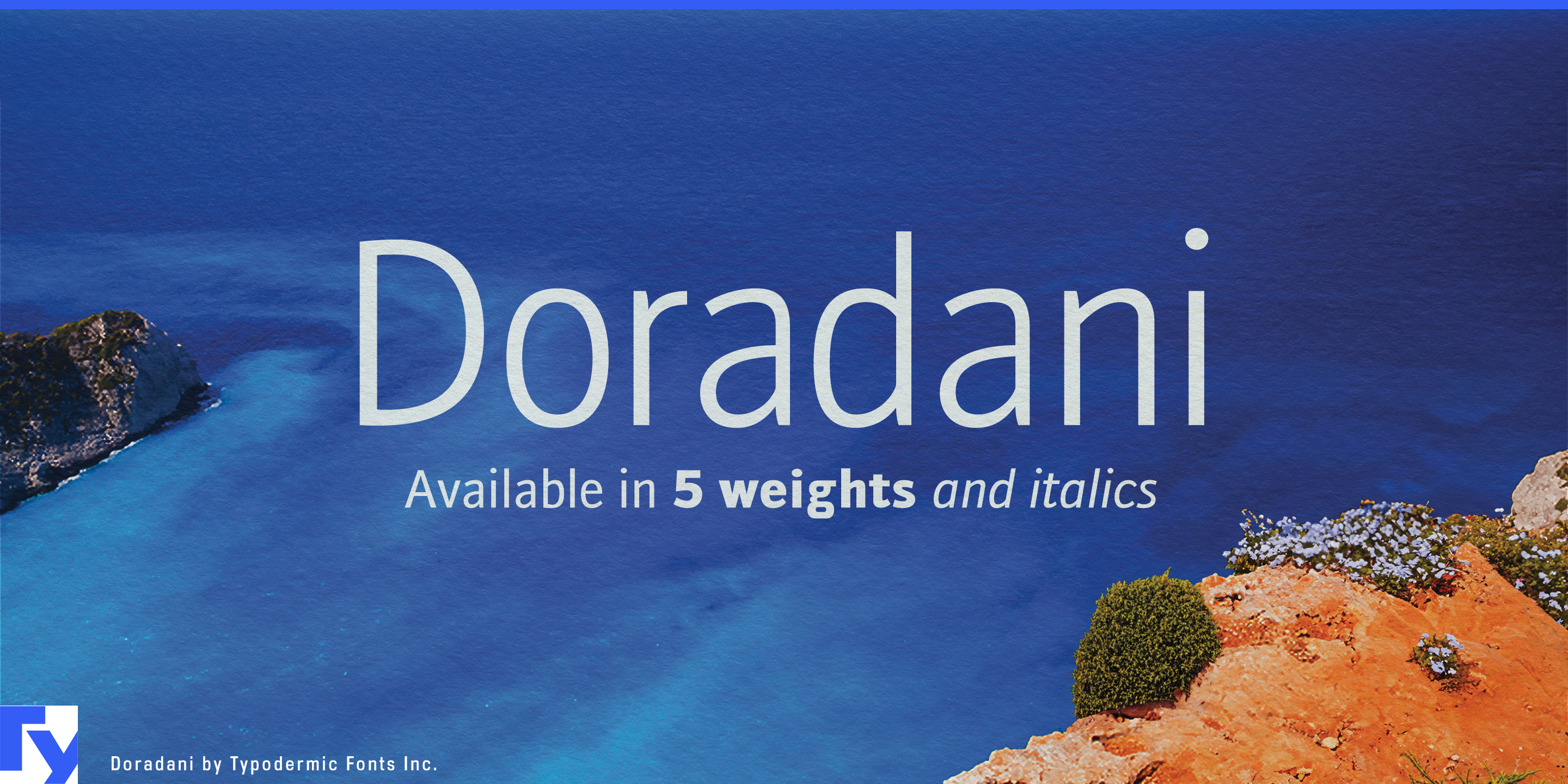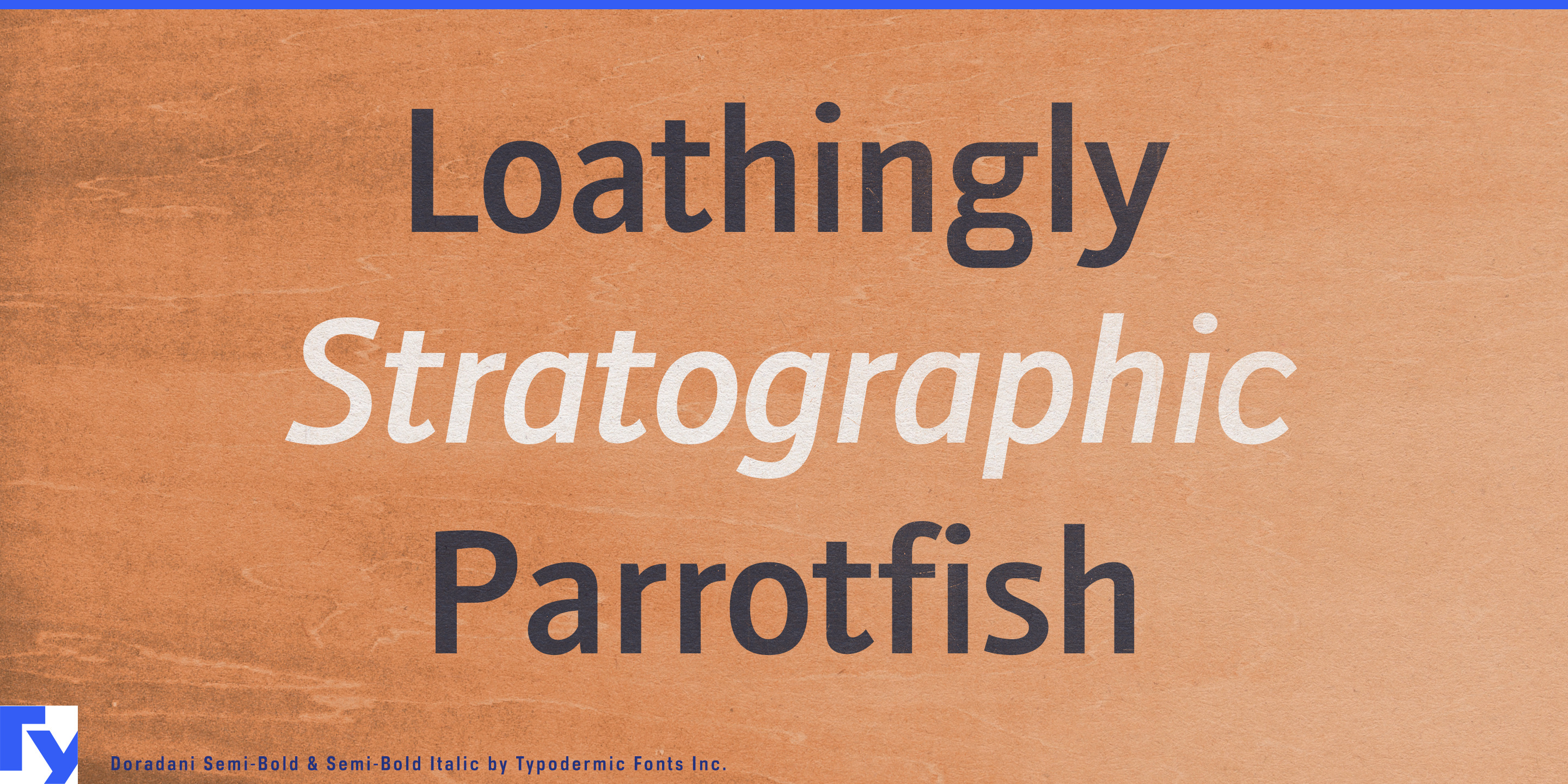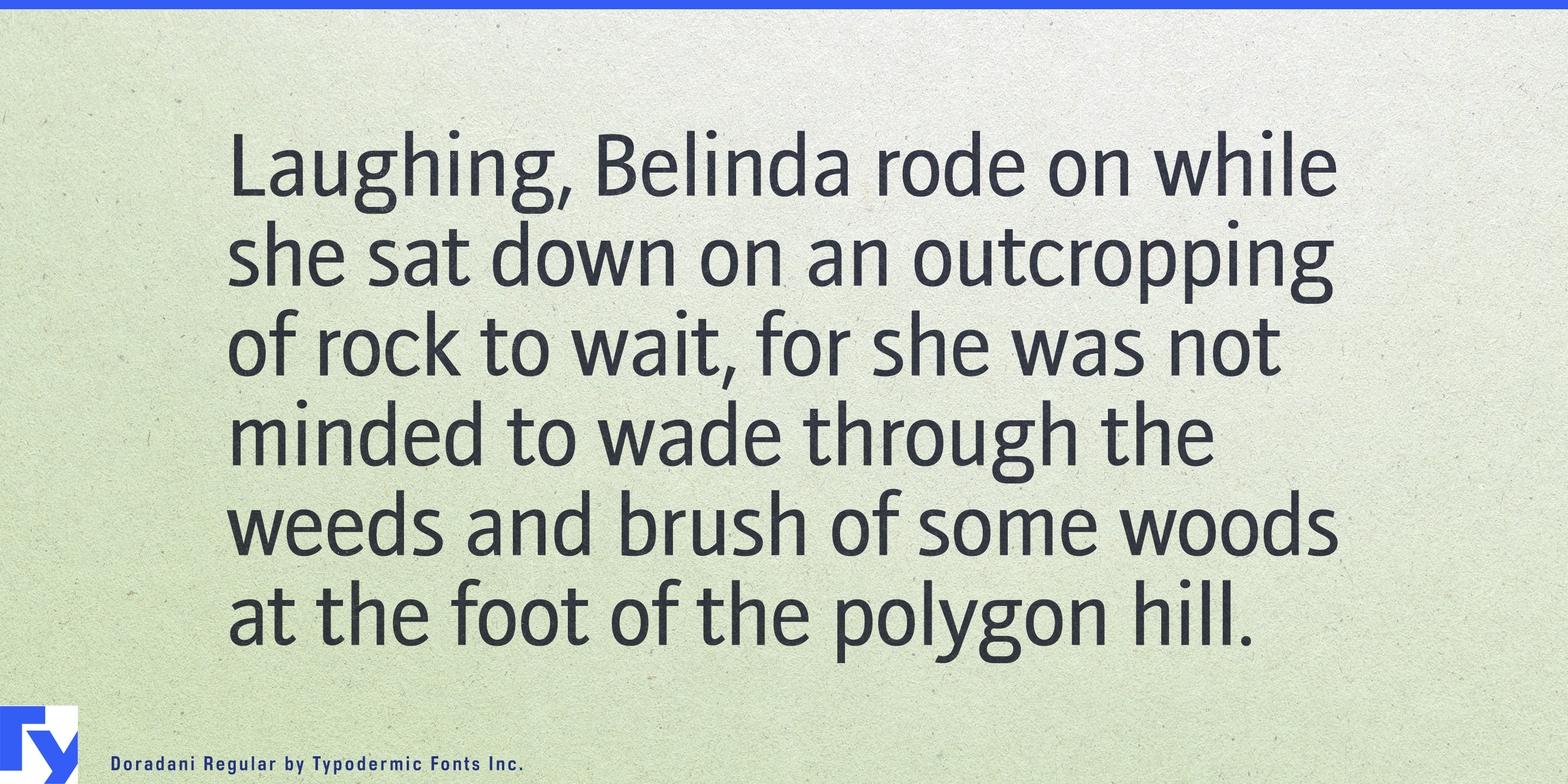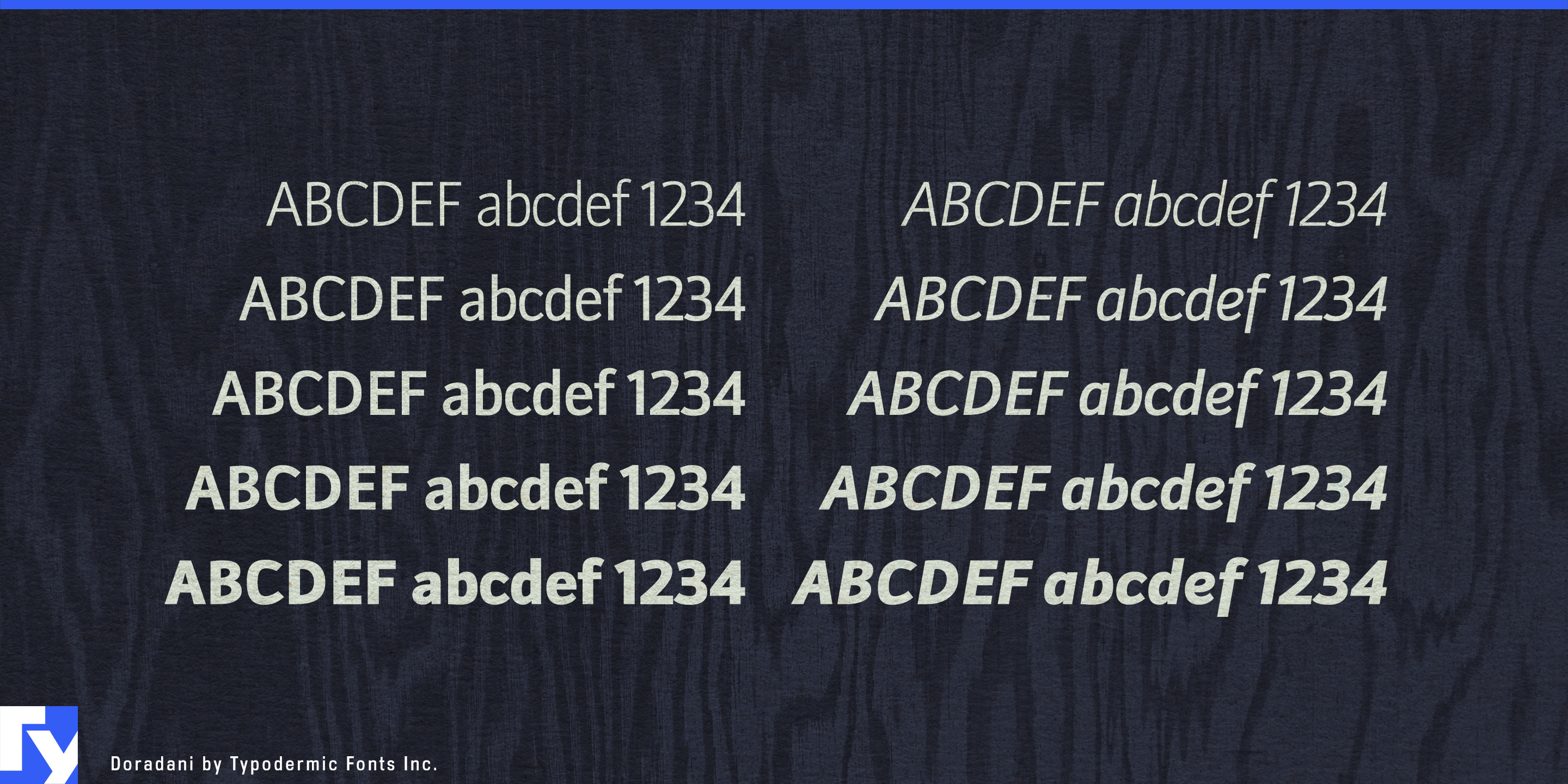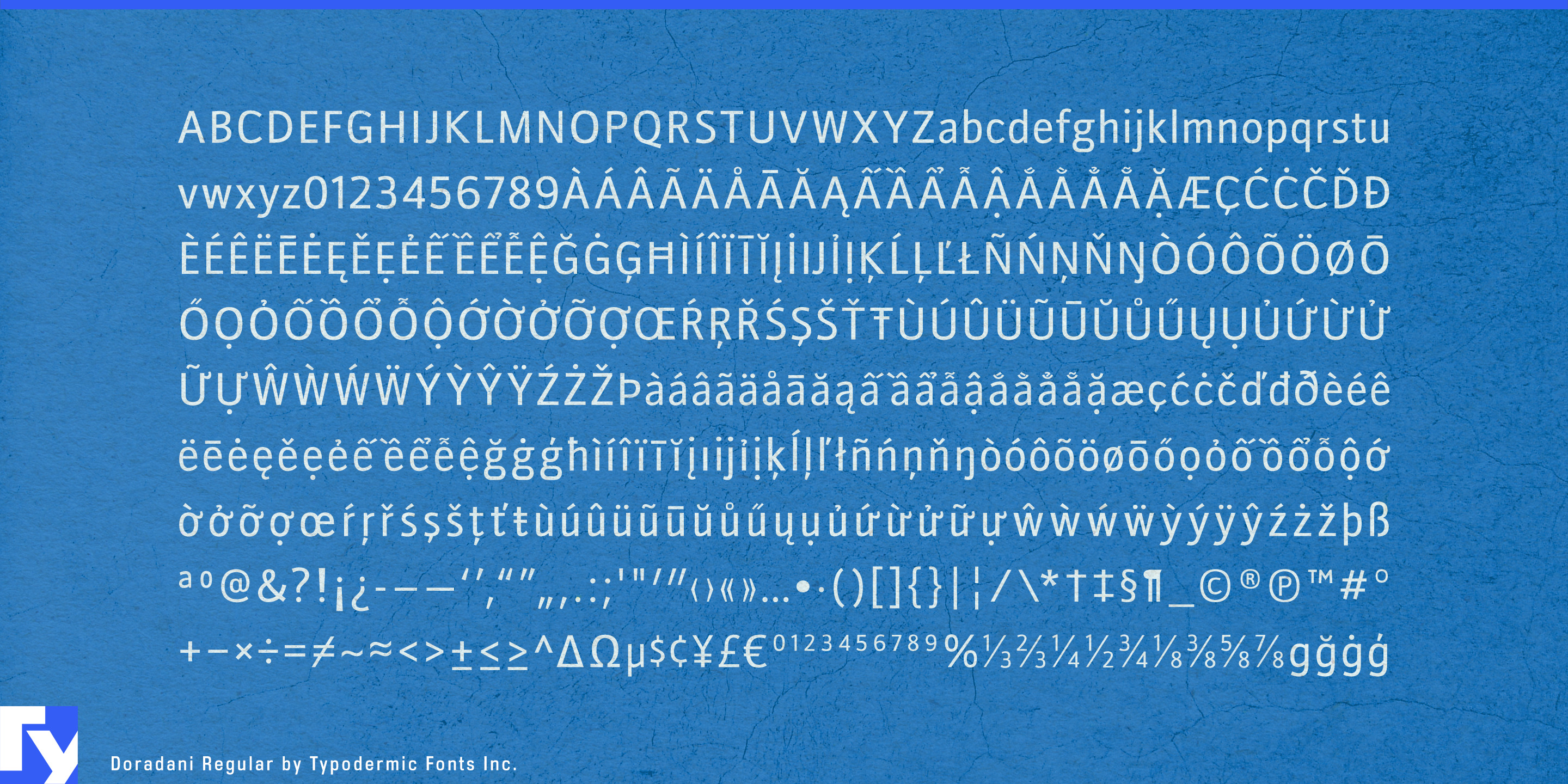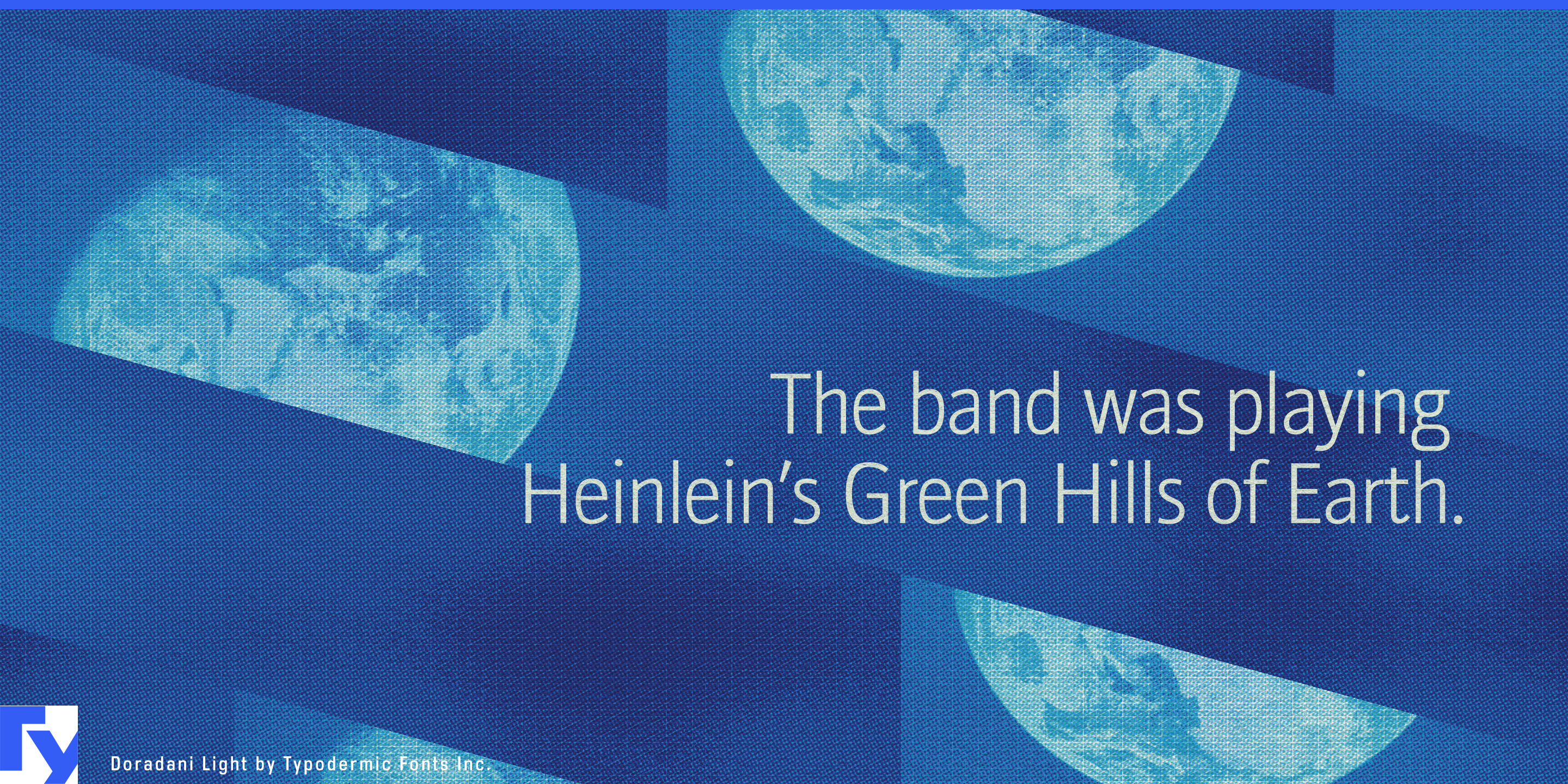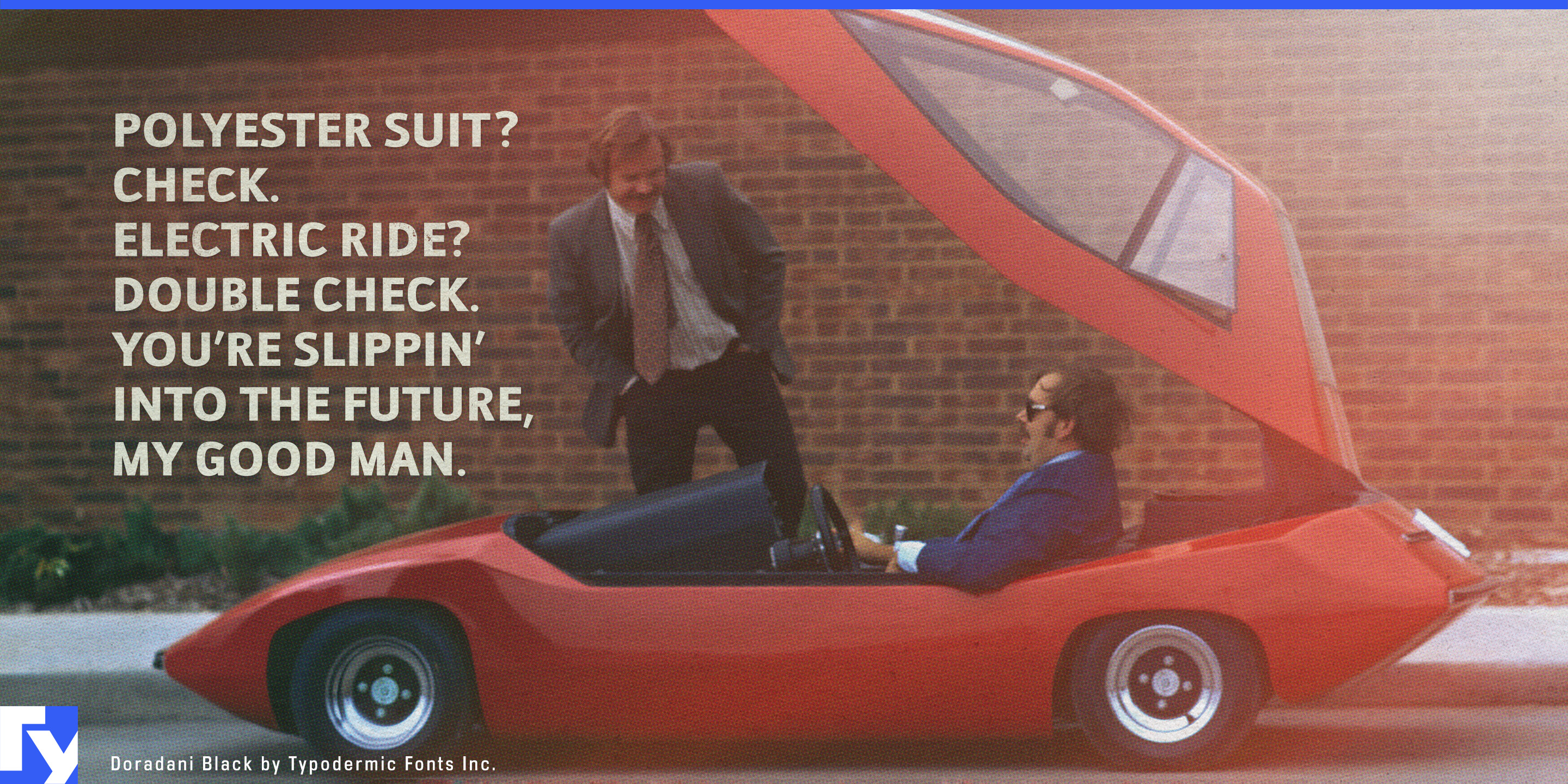
Doradani
Recreating the first smartphone era is harder than it looks. Pixel fonts point too far backward, shiny Y2K display lettering exaggerates the period, and today’s neutral technology typography immediately gives the game away. Doradani comes from the quieter corporate technology world of the mid-2000s. Commissioned for Research In Motion advertising in 2006, it offers period typography with a genuine connection to the enterprise-mobile era rather than a contemporary imitation of it.
That makes Doradani especially useful for film and television productions set around 2005–2012. A fictional telecom company, handset manufacturer or enterprise-software business may need airport posters, trade-show walls, business-magazine ads, handset brochures, annual reports, office signage, presentation slides and product-launch graphics that all belong to the same period. Doradani’s five weights and matching italics let an art department build that entire corporate system instead of relying on one conspicuously retro display face.
Documentaries about the smartphone transition, wireless communication and early mobile work provide another natural role. Doradani can handle chapter titles, dates, quotations, timelines and reconstructed advertising without reducing the period to green terminals, scanlines or arcade imagery. Corporate archives and anniversary projects can use it in heritage exhibitions, retrospective websites, investor-event timelines and internal museums when the 2000s need a distinct voice of their own.
The family also suits fictional corporations in games and interactive entertainment. Telecom headquarters, airport business lounges, research campuses and suburban office parks set in the 2000s need plausible directories, brochures, advertisements, forms and presentation graphics. Doradani’s restraint is useful here: it looks like typography a serious company might actually have chosen rather than an exaggerated shorthand for retro technology.
Contemporary products that revive the focused, task-oriented side of early mobile computing can draw on the same character. E-paper notebooks, compact keyboards, rugged handheld devices and other products positioned as tools rather than entertainment portals can use Doradani in campaign graphics, product-family names and launch material when a subtle memory of enterprise technology is useful. Doradani is not trying to outcompete every contemporary humanist sans; its strength is giving designers a complete, restrained family for portraying the first smartphone era with considerably more accuracy than the usual retro-tech clichés.
- Humanist, Monoline, Calligraphic
- Open counters